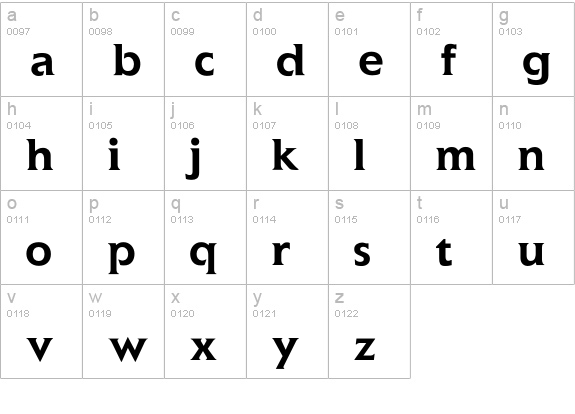
ElanBold Font Details
ElanBold is a sleek and modern typeface that exudes elegance and sophistication. Its clean lines and bold strokes make it perfect for creating eye-catching designs that demand attention. Whether you're designing a logo, poster, or website, ElanBold will bring a touch of class to your project. The best part? ElanBold is completely free to download at FontsMarket.com. This means you can add this stunning font to your collection without breaking the bank. Don't miss out on the opportunity to enhance your designs with the timeless beauty of ElanBold. Download it today and elevate your creations to the next level.